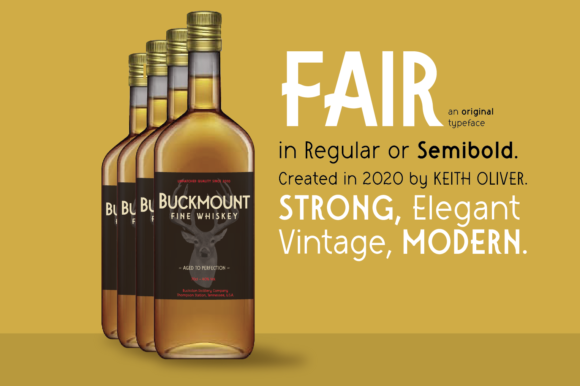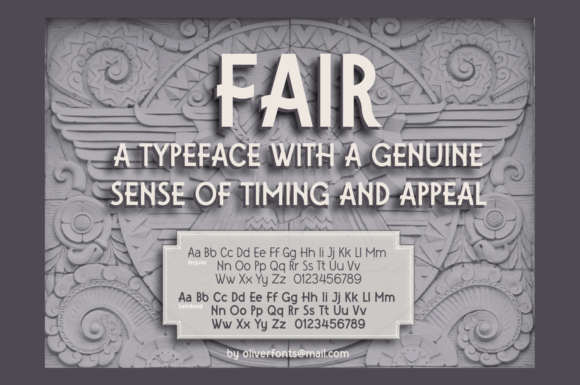
Discover the Power of Fair Font: Elevate Your Designs with a Unique Sans Serif Style
Are you tired of using the same old fonts in your designs? Do you want to add a touch of uniqueness and creativity to your projects? Look no further than Fair Font, a stunning sans serif font that’s sure to make your designs stand out. In this article, we’ll explore the features and benefits of Fair Font, and show you how to incorporate it into your creative workflow.
What is Fair Font?
Fair Font is a modern sans serif font that’s designed to be both clean and elegant. Its unique letterforms and stylish lines make it perfect for a wide range of design applications, from branding and advertising to packaging and digital media. With its simple yet distinctive design, Fair Font is sure to grab attention and leave a lasting impression.
Key Features of Fair Font
- Unique and distinctive design: Fair Font boasts a one-of-a-kind design that’s sure to set your designs apart from the crowd.
- Clean and elegant lines: The font’s clean lines and elegant curves make it perfect for creating sophisticated and modern designs.
- Highly legible: Despite its unique design, Fair Font is highly legible, making it perfect for use in body text and other applications where readability is key.
- Versatile: Fair Font can be used in a wide range of design applications, from digital media to print materials.
Benefits of Using Fair Font
So why should you choose Fair Font for your designs? Here are just a few benefits of using this amazing font:
- Add a touch of uniqueness: With Fair Font, you can add a touch of uniqueness and creativity to your designs, setting them apart from the competition.
- Elevate your brand: Fair Font is perfect for creating a strong brand identity, with its clean lines and elegant design conveying a sense of sophistication and professionalism.
- Improve readability: Despite its unique design, Fair Font is highly legible, making it perfect for use in body text and other applications where readability is key.
How to Use Fair Font in Your Designs
Using Fair Font in your designs is easy. Here are a few tips to get you started:
- Pair it with other fonts: Fair Font pairs perfectly with other fonts, making it easy to create stunning contrast and visual interest in your designs.
- Experiment with different sizes and colors: Fair Font looks great in a wide range of sizes and colors, so don’t be afraid to experiment and find the perfect combination for your design.
- Use it in a variety of design applications: Fair Font can be used in a wide range of design applications, from digital media to print materials, making it a versatile addition to your font library.
Fair Font is a unique and interesting sans serif font that’s sure to elevate your designs and make them stand out. With its clean lines, elegant design, and high legibility, Fair Font is perfect for a wide range of design applications. Whether you’re a designer, crafter, or simply someone who loves to create, Fair Font is a must-have addition to your font library. So why wait? Download Fair Font today and start creating stunning designs that will leave a lasting impression.
- What is Fair Font? Fair Font is a modern sans serif font designed to be both clean and elegant.
- Is Fair Font legible? Yes, Fair Font is highly legible, making it perfect for use in body text and other applications where readability is key.